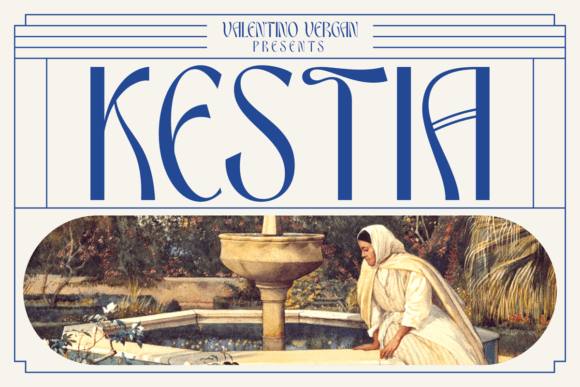
Step into the realm of elegance and modernity with Kestia Font, the display typeface that will redefine your creative horizons. Inspired by the Art Nouveau era, this font is a masterpiece crafted to bring your designs to new heights.
Kestia Font is a captivating display font that exudes sophistication and charm. Its delicate curves and graceful lines evoke a sense of nostalgia while maintaining a contemporary appeal. Whether you're designing logos, invitations, posters, or any other visual masterpiece, Kestia Font is the perfect choice to add a touch of timeless beauty.
With its versatility and adaptability, Kestia Font effortlessly complements a wide range of projects. Envision your words taking shape in this exquisite typeface, whether it's a wedding invitation that speaks of timeless love, a business card that exudes professionalism, or a poster that captures the essence of an unforgettable event.
Kestia Font is more than just a font; it's an artistic expression that will elevate your designs and leave a lasting impression on your audience. Its meticulous detailing and harmonious flow will captivate their attention and create an emotional connection that transcends words.
Don't settle for ordinary fonts. Embrace the allure of Kestia Font and unlock a world of creative possibilities. Let your imagination soar as you create stunning visuals that resonate with elegance, sophistication, and timeless beauty.
Experience the magic of Kestia Font today and embark on a journey of design excellence.